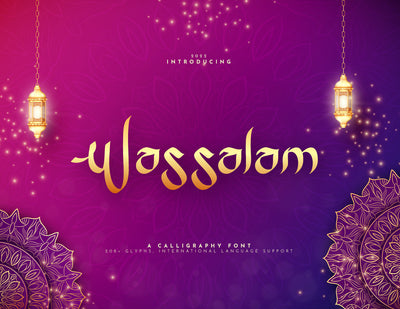
Wassalam Display Font
Wassalam is the one of Display Font. Made with unique lines and curve, "Wassalam" is giving you authentic handwriting. "Wassalam" seen from its name, "Wassalam" is inspired from Arabic style and Calligraphy. Its sharp and curving is bringing us the Middle East vibes. Easy on the eye font, "Wassalam" will make the design look powerful and sensuous. "Wassalam" is perfectly appropriate for poster, Ramadhan project, pamphlet, social media post, greeting card, and another design.